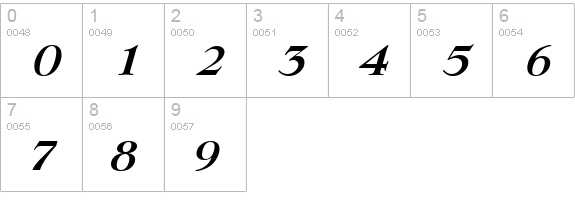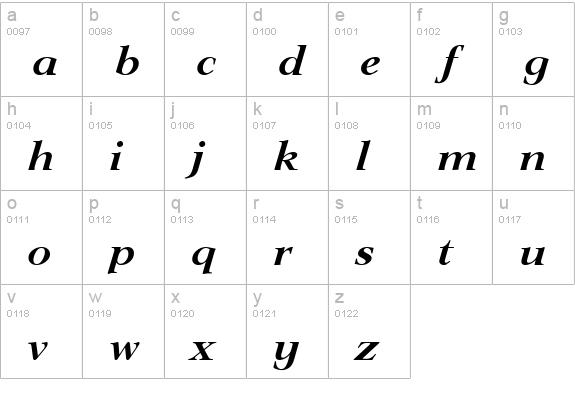
LingwoodSerial-BoldItalic is a striking and versatile font that exudes elegance and sophistication. Its bold and italic design adds a touch of flair to any project, making it perfect for headlines, titles, and other attention-grabbing text. The sleek lines and unique curves of LingwoodSerial-BoldItalic make it a standout choice for designers looking to make a statement. Best of all, LingwoodSerial-BoldItalic is available for free download at FontsMarket.com. This means that you can easily access this stunning font and incorporate it into your designs without any cost. Whether you're working on a professional project or a personal one, LingwoodSerial-BoldItalic is sure to elevate your work and leave a lasting impression on your audience. Don't miss out on this incredible opportunity to enhance your designs with the beauty and sophistication of LingwoodSerial-BoldItalic.